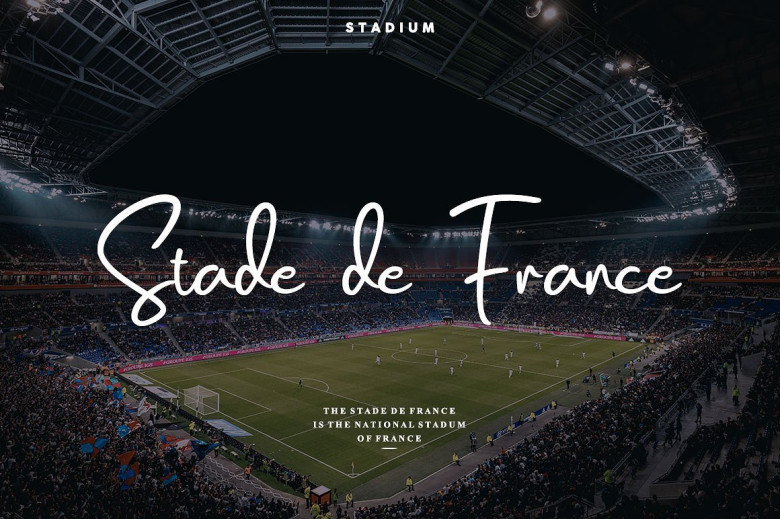
Salmon Script Font
Introducing Salmon Font!  It is designed and shared by Emtheen Std. Salmon is a handmade font that is very elegant, handsome and also has a modern simple style suitable for now. This font is very suitable for use Logotype / Branding because it looks dashing and can also be product packaging, watermark, business cards, wedding designs and more.